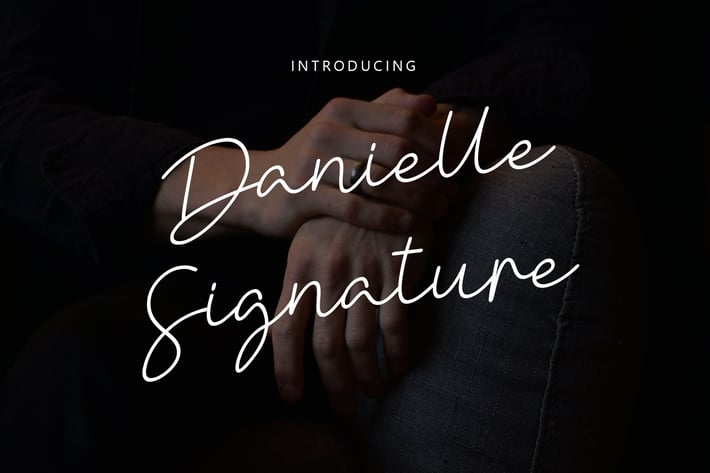
Danielle Signature - Handwritten font
Danielle Signature font. It has a elegant, classy look and beauty. Itβs a great font for fashion,
apparel projects, signature, album cover, logo, branding, magazine, social media, & advertisements,
but also works great for other projects.
Highlight :
- The perfect font choice for powerful projects - watermarks, signatures, photography, logos, business cards, quotes,
album covers.